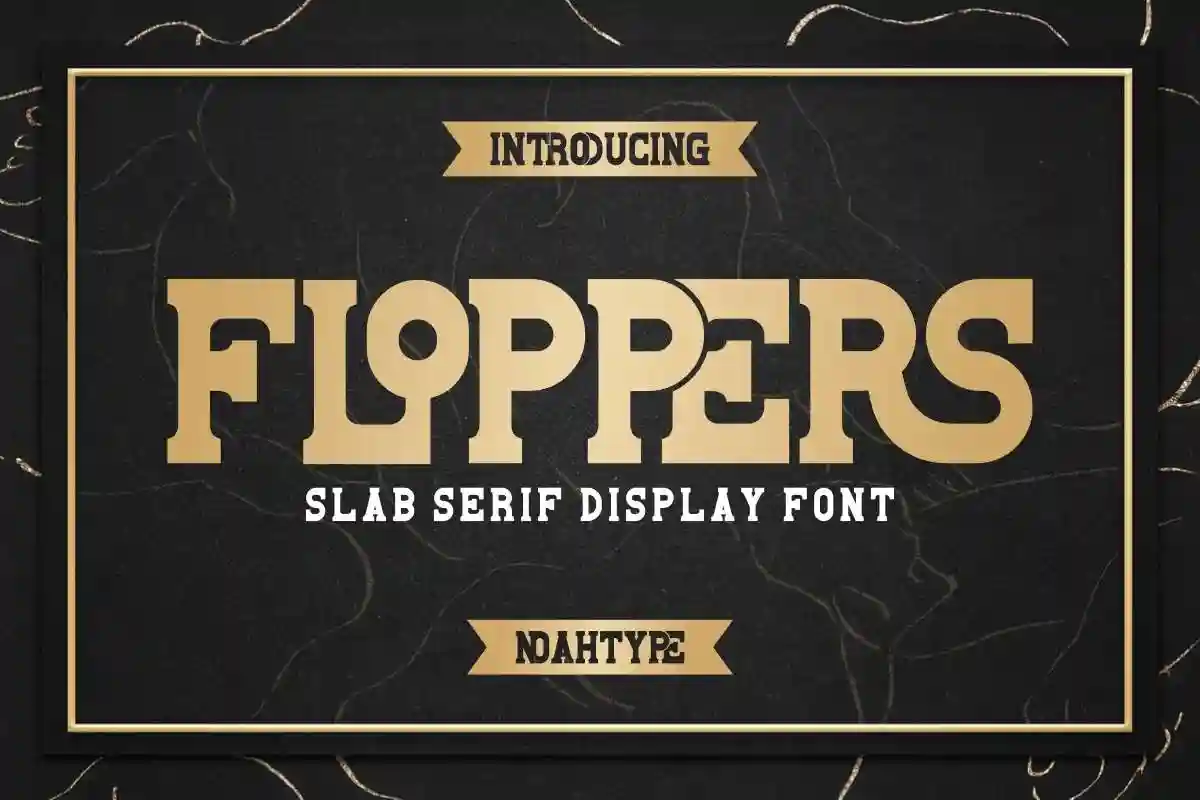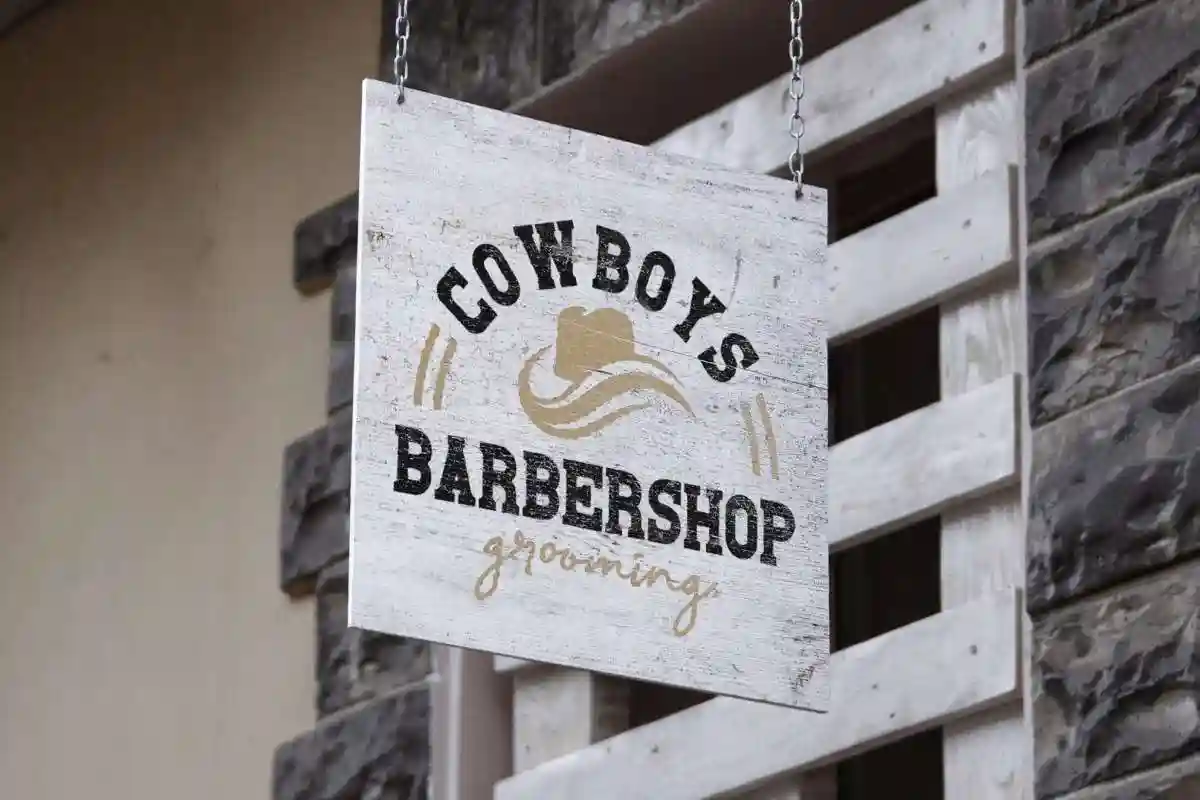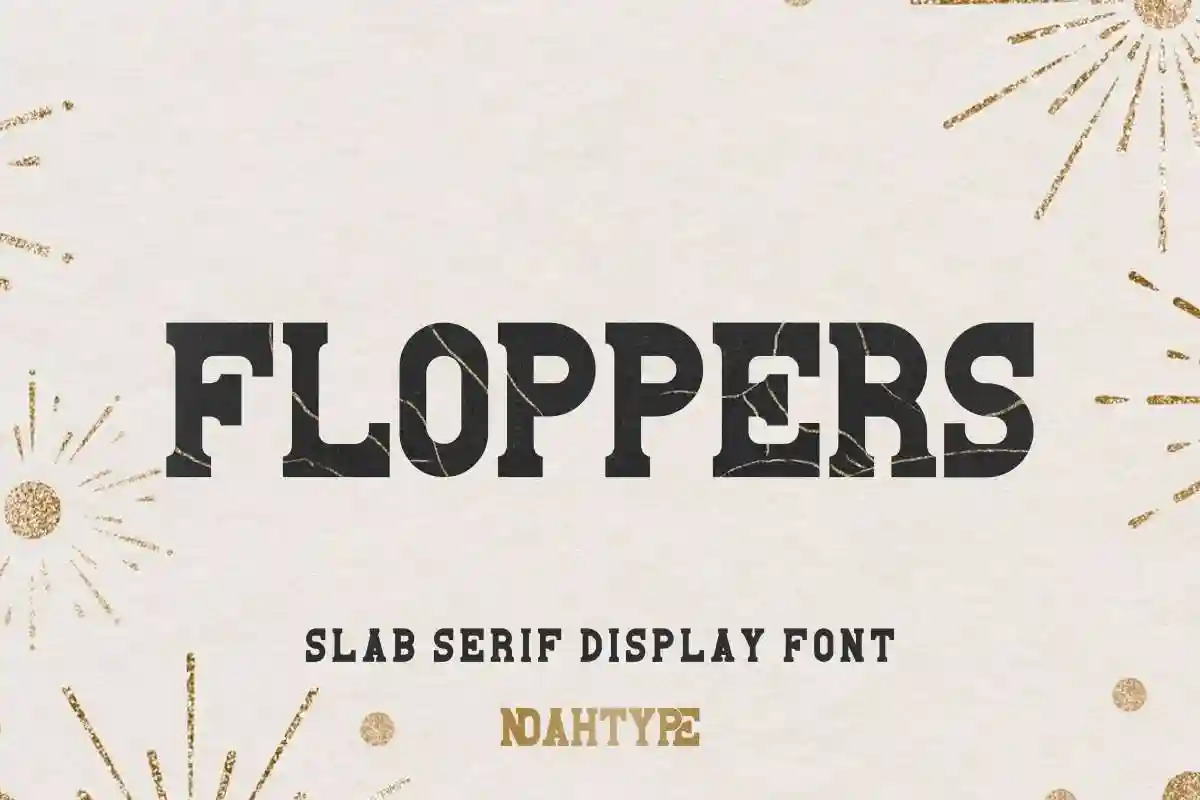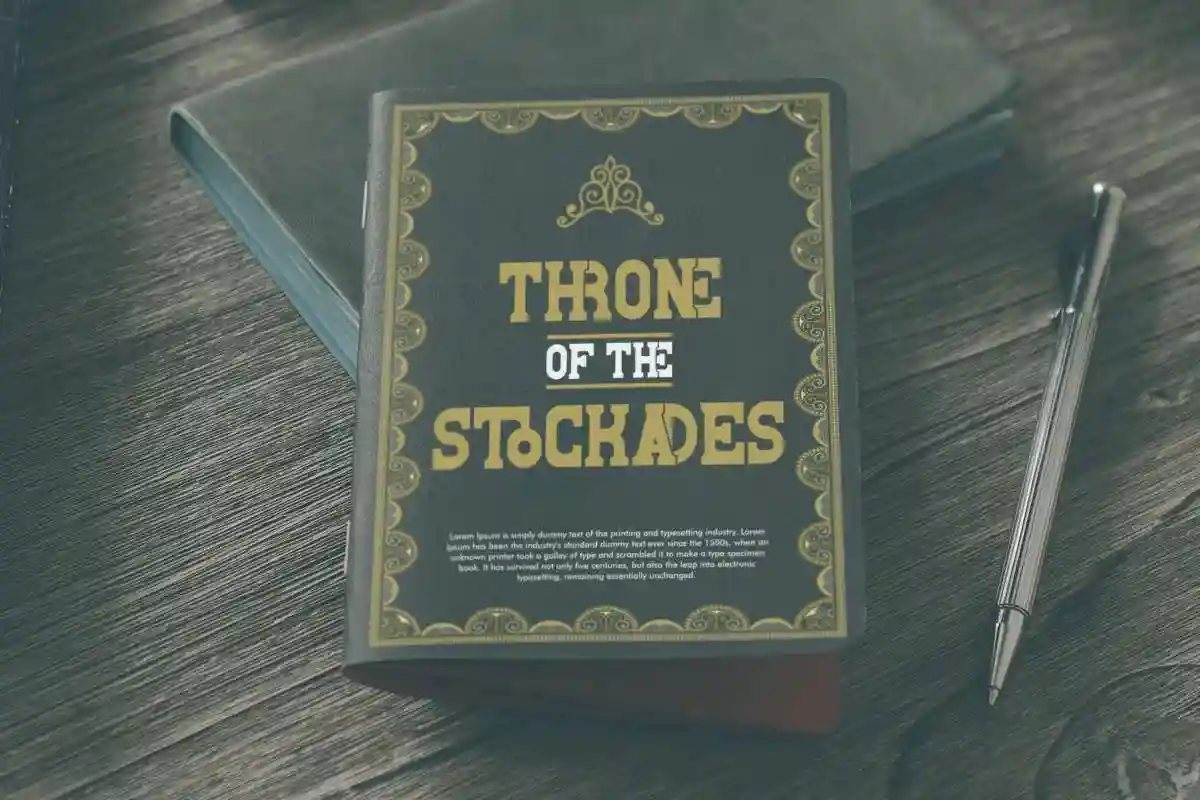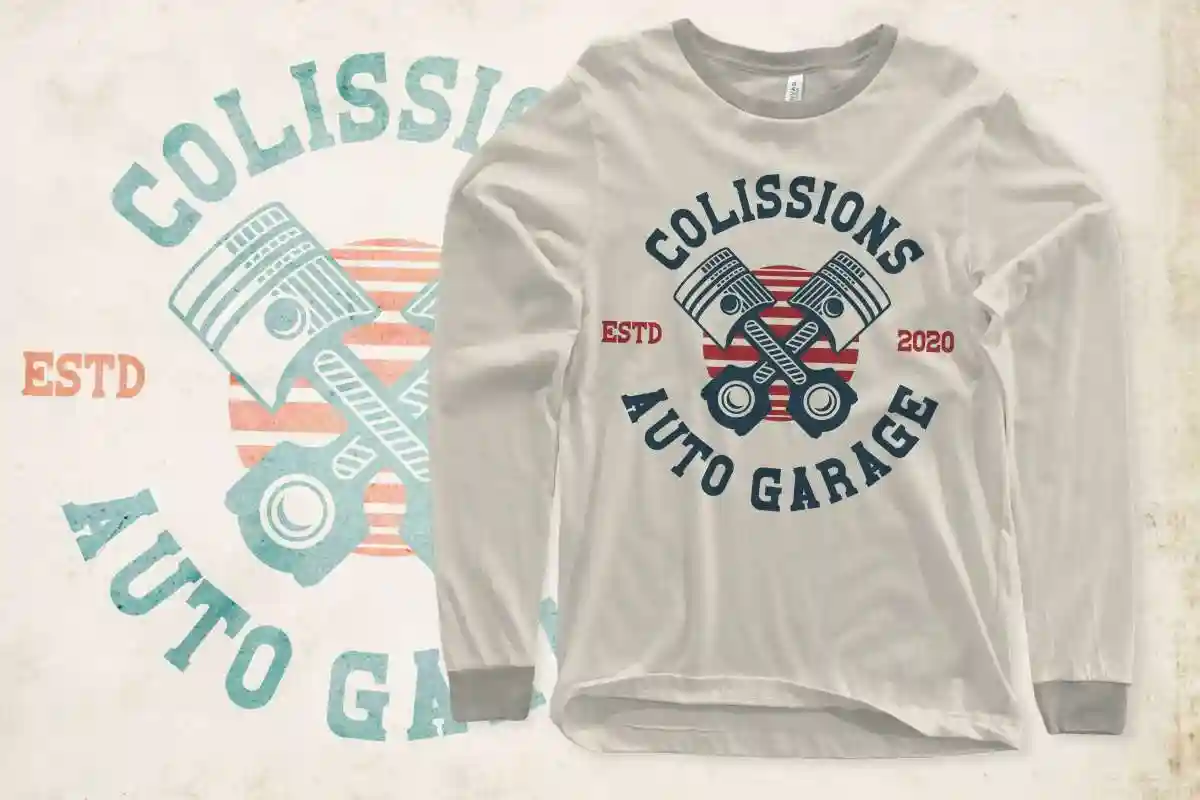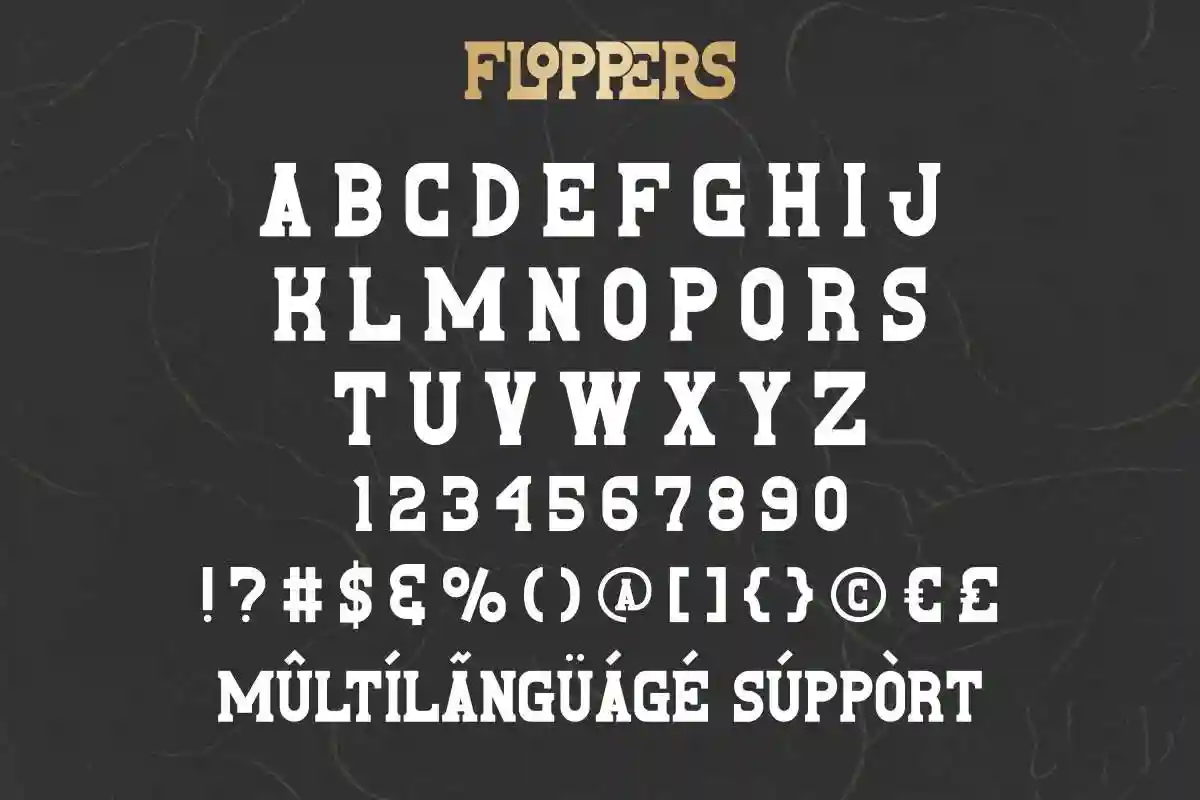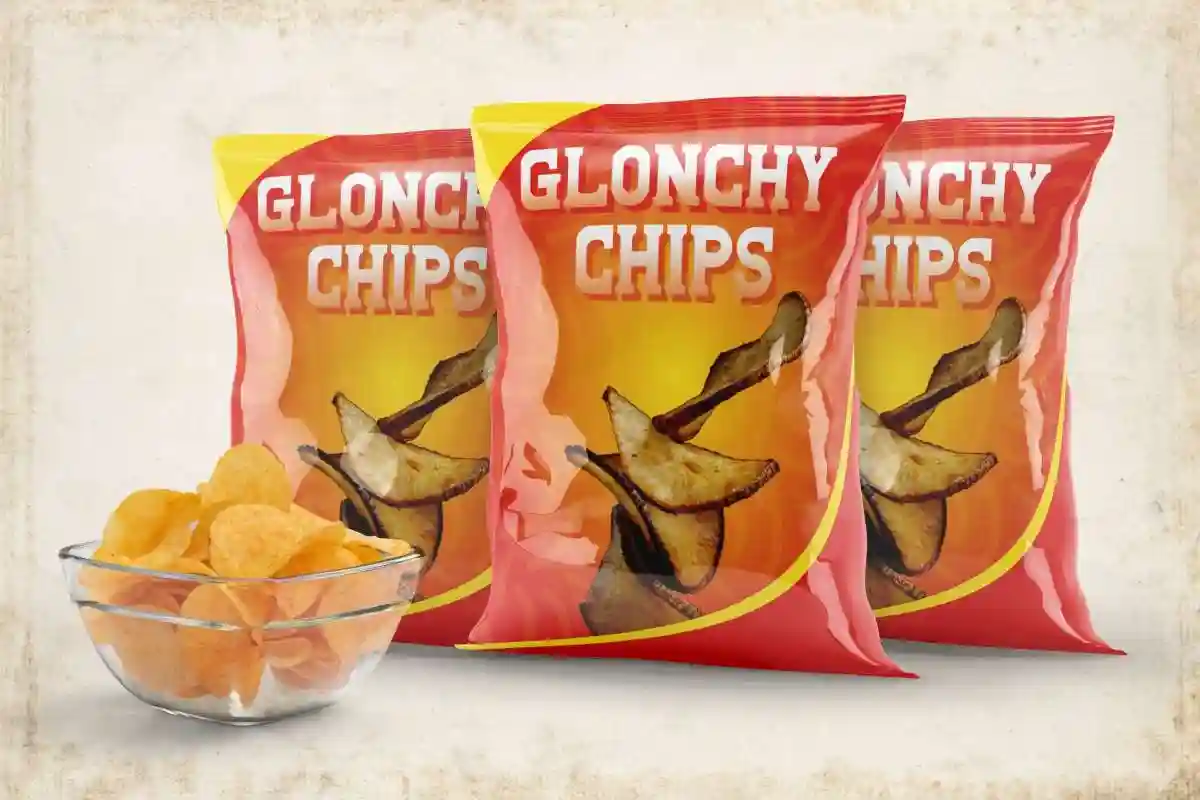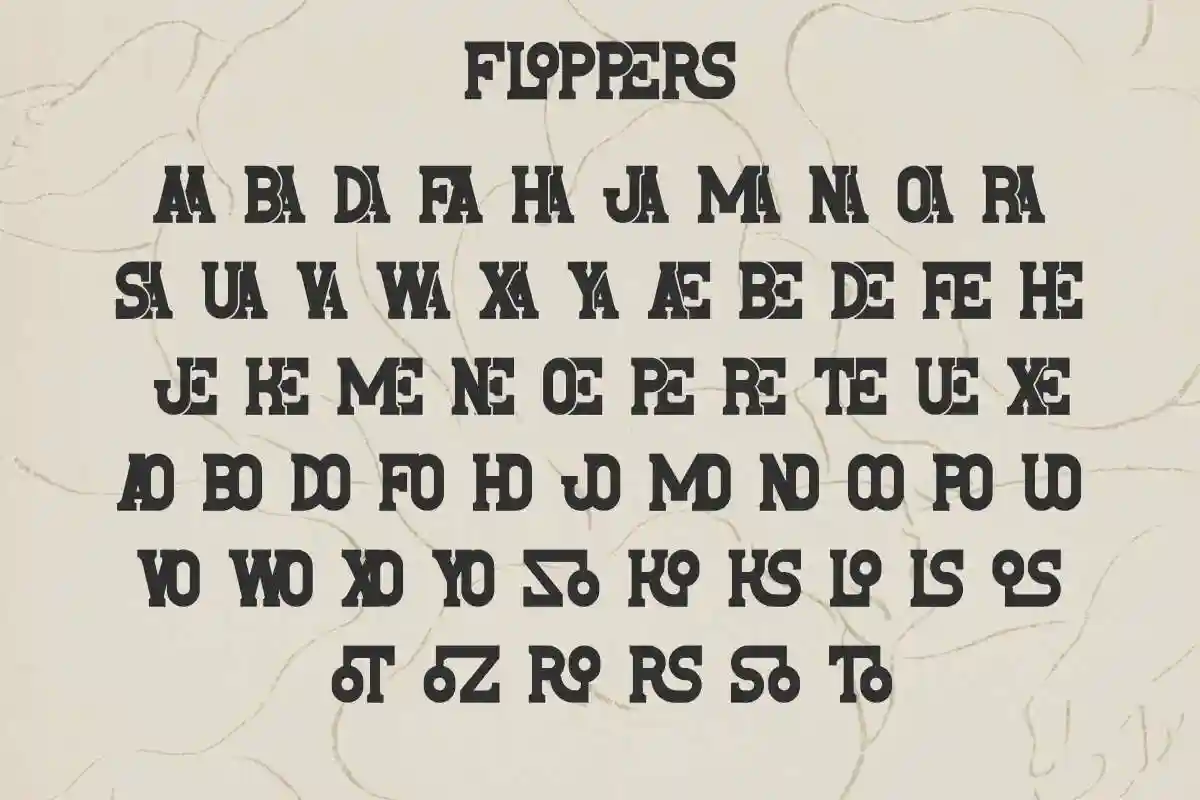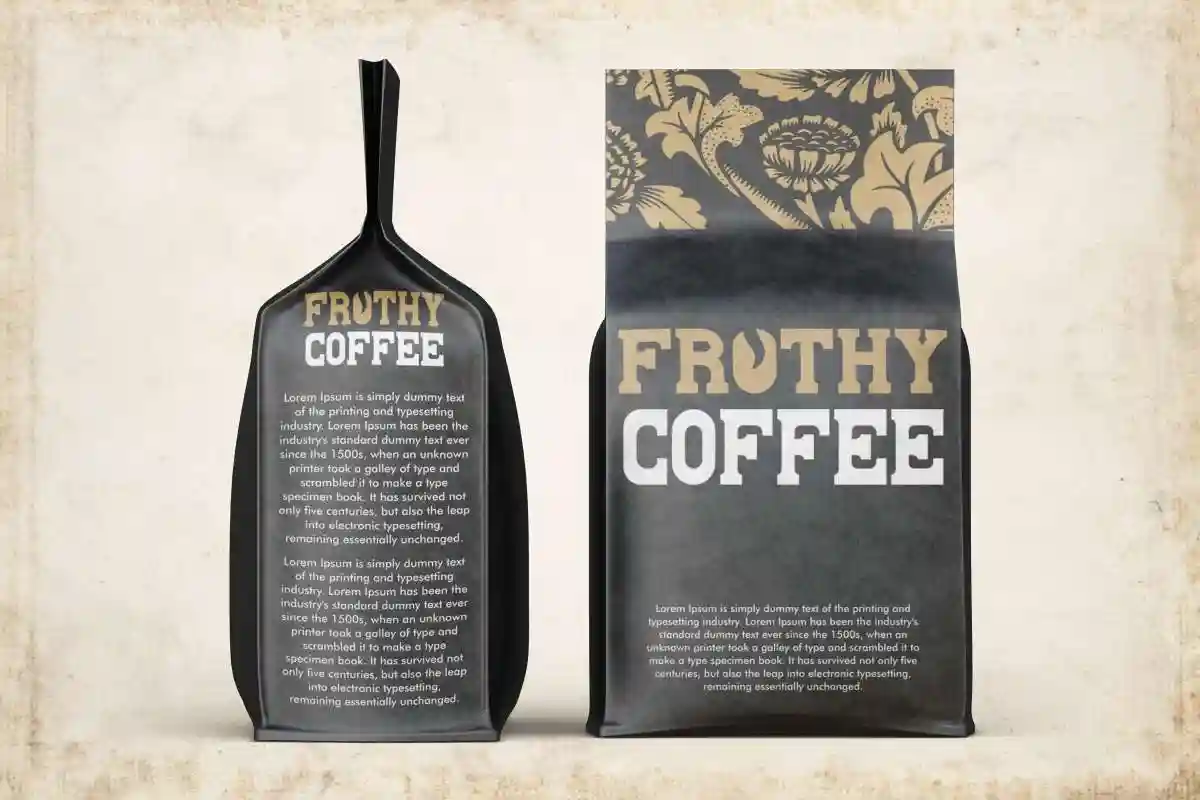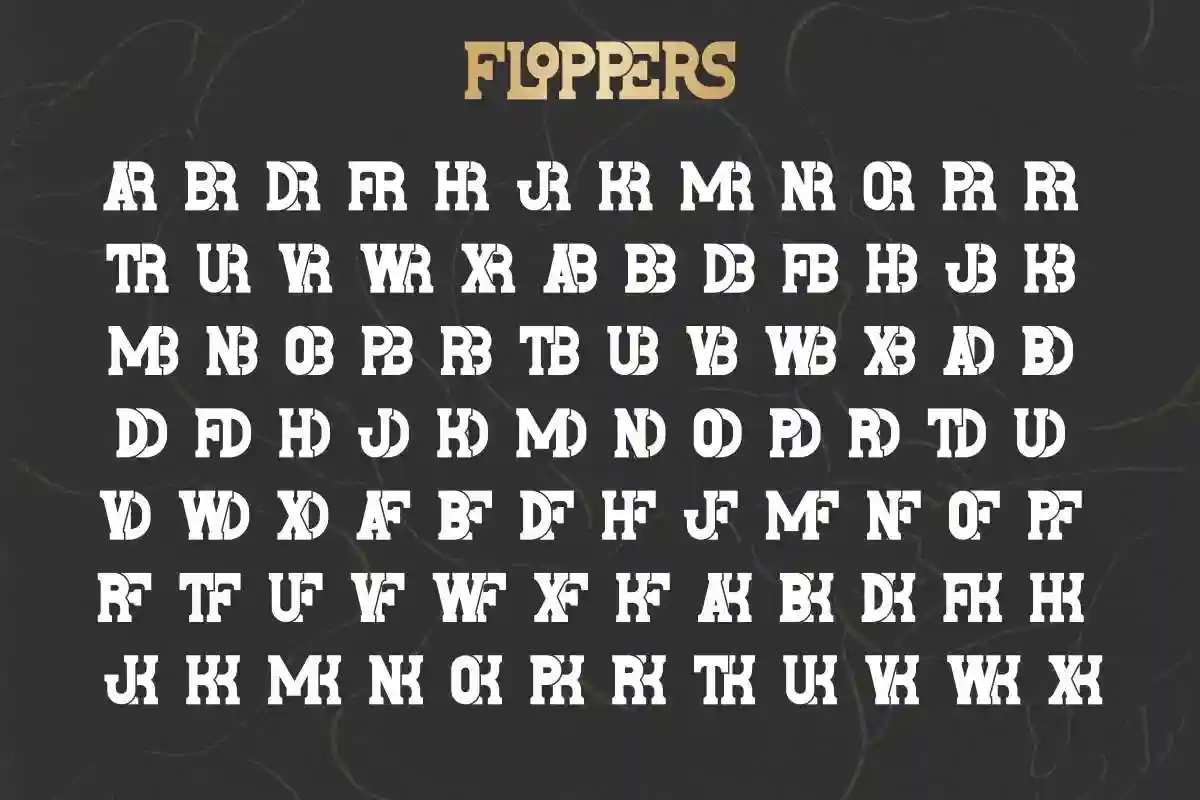
Floppers Font is classic slab serif display font style exclusively created by NoahType. This font has an authentic and exclusive look that gives it a perfect and easy to read. It will be amazing for any industry: automotive, barbershop, café, equestrian, fashion, snack food, writer, and more.
Floppers Font includes Uppercase Base Characters with one size, Numerals and Punctuation. It will be amazing for any project: apparel print design, brochure, creating logo, headers, product packaging, signage, and more. Perfect your amazing projects with this typography.
Looking for a unique serif display font that blends classic charm with contemporary flair? Floppers Serif Display Font is the perfect solution for designers, creators, and brands seeking a bold and artistic typographic statement.
This font isn’t just visually stunning; it’s also highly versatile. Whether you’re working on a fashion campaign, a retro-themed project, or a luxurious brand identity, Floppers elevates your design with style and precision.
Floppers Font supports multilingual languages (including multiple currency symbols) with a simple installation, also have ligature characters options that you can select and use to make it standout. The font will be ready to use both on Windows machine or Mac. It work well on Adobe software such as Illustrator, Photoshop and several other software.